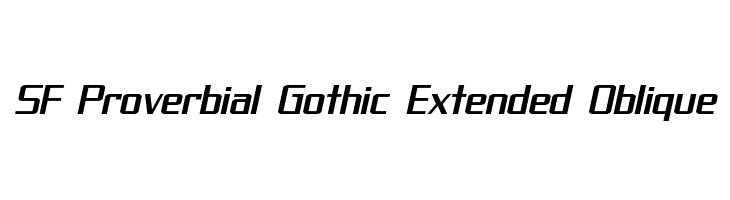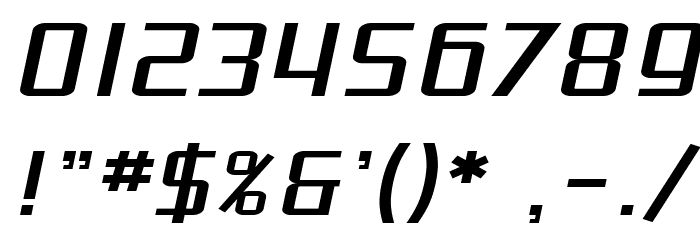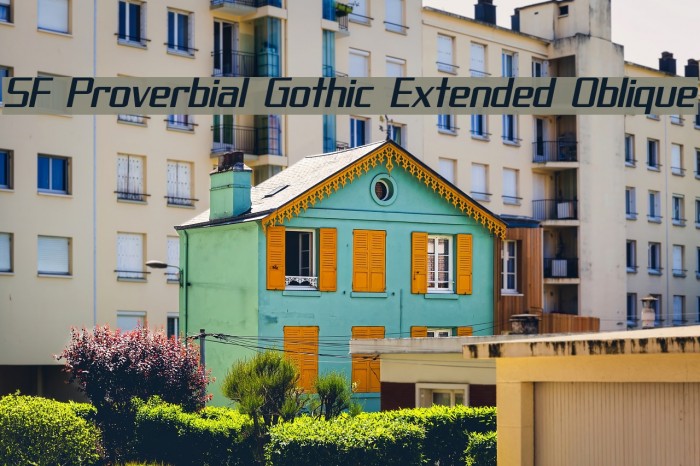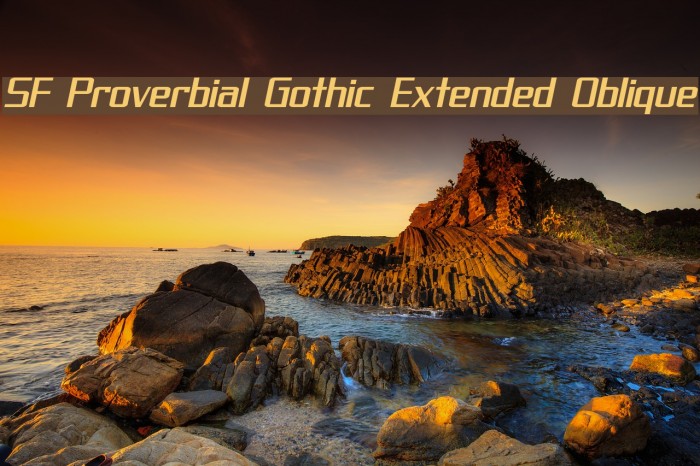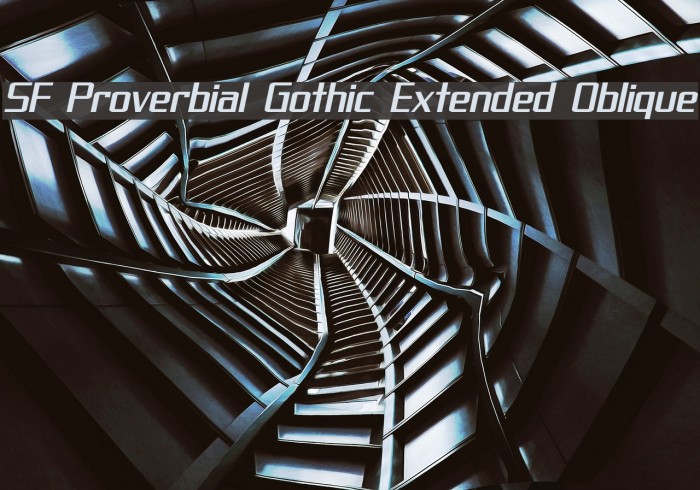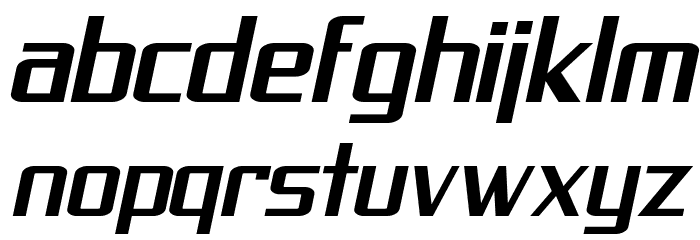
SF Proverbial Gothic Extended Oblique Font
SF Proverbial Gothic Extended Oblique Description
This font features a modern, angular design with a distinct oblique slant, giving it a dynamic and forward-leaning appearance. The characters are extended, providing a sense of spaciousness and readability, while maintaining a sleek and professional look. The uppercase letters are bold and assertive, while the lowercase characters complement them with a slightly softer touch. The numerals are clear and consistent, matching the overall style of the alphabet. Special characters are well-integrated, ensuring versatility for various applications. The font's geometric structure and clean lines make it suitable for contemporary design projects.
A modern, oblique, and extended font with a sleek, angular design from Futuristic fonts.
• Proposed Projects: Ideal for branding, advertising, digital interfaces, and modern editorial design.